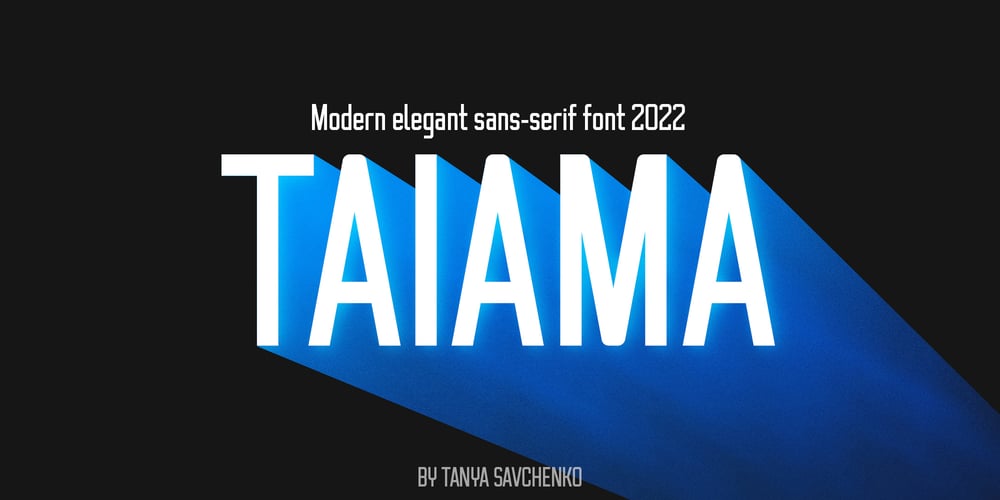
Taiama Font Family was designed by Tetiana Savchenko and published by Tanya Savchenko. Taiama contains 1 styles and family package options. TAIAMA – modern elegant sans-serif font, 2022 release. The font has a set of Latin and Cyrillic.When designing the font, I took into account it’s simplicity and intelligibility. Even a large amount of text looks stylish and modern, and most importantly, readable. Why not use this font for everything?